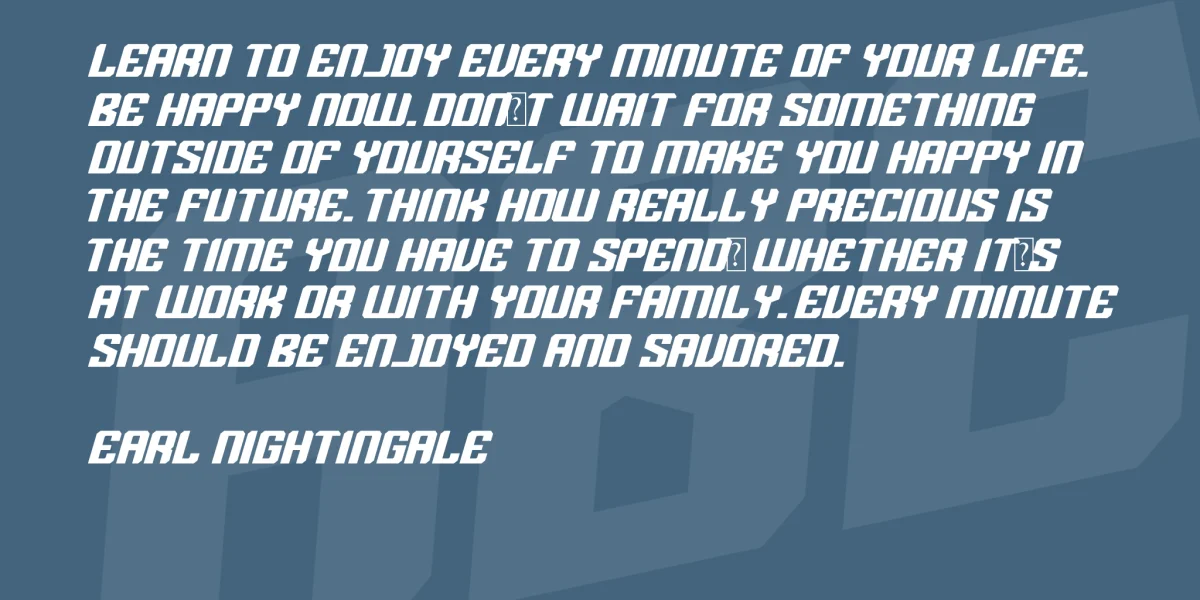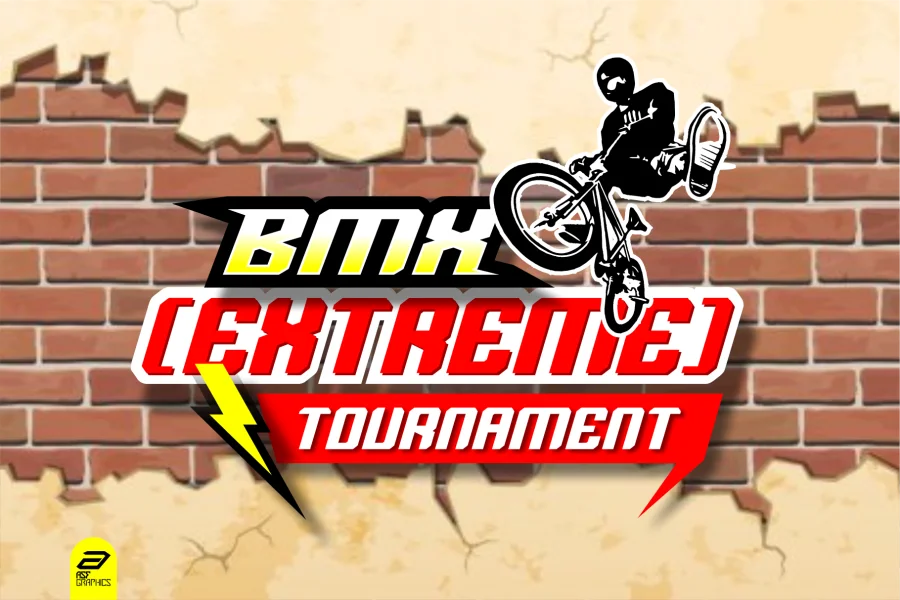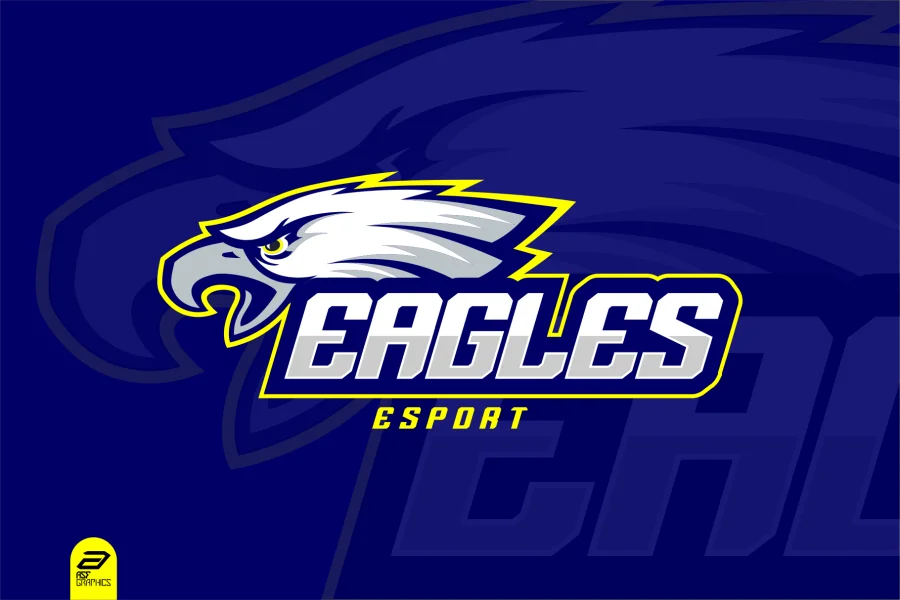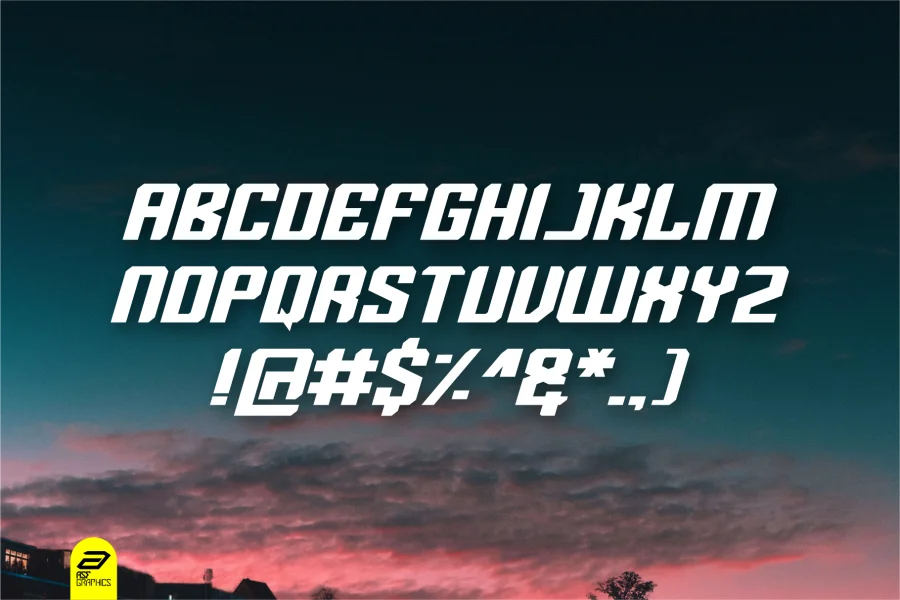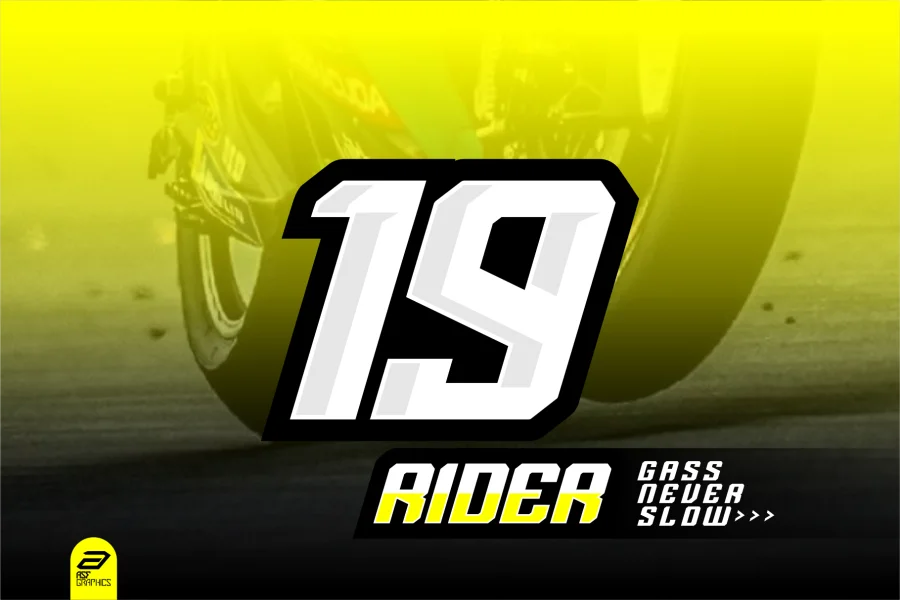
Metricas is a font that carries a vision of elegance, simplicity and modernity. suitable for advertising purposes, sublimation, t-shirts, racing and entertainment elements.